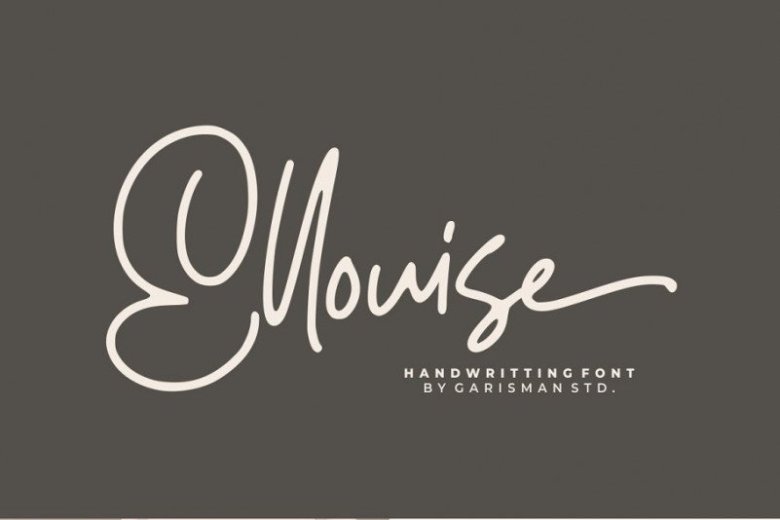
Ellouise Script Font Free
Thank you for looking Ellouise Font. This is a natural & modern handwritten font. It’s a classy handwriting font with a distinctive curve, inside with some interesting features that are perfect for a authentic-style project. It’s designed by Garisman Std.
Ellouise Script is made a naturally modern script with a fresh modern script; delivering a stylish script which is guaranteed to add an eye-catching appeal to your logo designs, brand imagery, quotes, product packaging, merchandise & social media posts.